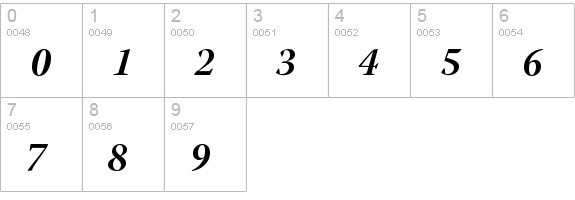
Warnock Pro Bold Italic Subhead Font Details
Warnock Pro Bold Italic Subhead is a strong, high-contrast, italic variant in the Warnock typeface family \xE2\x80\x94 well suited to headlines, attention-grabbing titles, and strong calls-to-action.
Warnock Pro Bold Italic Subhead is a striking and versatile font that commands attention with its bold and italic design. Its strong and elegant letterforms make it perfect for creating eye-catching subheadings that demand to be noticed. This font is part of the renowned Warnock Pro font family, known for its exceptional readability and timeless appeal. The bold and italic variations of Warnock Pro Subhead add a touch of sophistication and emphasis to any design project, making it an excellent choice for headlines, titles, and subheadings. One of the best features of Warnock Pro Bold Italic Subhead is that it is freely available to download at FontsMarket.com. This means that designers, creatives, and enthusiasts can easily access this premium font without any cost. Whether you're working on a personal project or a professional design, having access to a high-quality font like Warnock Pro Bold Italic Subhead can elevate your work and help you achieve the desired impact. With its strong presence and distinctive style, Warnock Pro Bold Italic Subhead is a font that demands attention and adds a touch of sophistication to any design. Its versatility makes it suitable for a wide range of applications, from print to digital media. Whether you're designing a magazine layout, creating a website, or working on a branding project, Warnock Pro Bold Italic Subhead will ensure that your headlines and subheadings stand out with elegance and impact. Don't miss the opportunity to enhance your design projects with Warnock Pro Bold Italic Subhead. Download it for free at FontsMarket.com and unlock a world of possibilities for your creative endeavors.